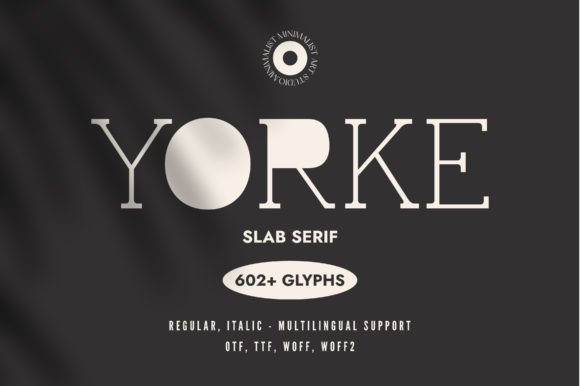
Are you looking for the best fonts for your magazine? Look no further than Yorke Font, created by Minimalistartstudio. This modern slab serif font is guaranteed to elevate your designs and captivate your audience.
With its sleek and sophisticated look, Yorke brings a touch of elegance and professionalism to any project. Its clean and crisp lines give it a contemporary feel, while the slab serif design adds a classic touch. This unique combination of old and new makes Yorke the perfect choice for projects that require a timeless yet modern aesthetic.
Whether you're designing a logo, creating a website, or producing a print publication, Yorke has everything you need to make your work stand out from the crowd. Its versatility allows it to seamlessly adapt to any design style or theme, making it a must-have for any creative professional.
But what truly sets Yorke apart is its ability to evoke emotions and create a connection with your audience. The font's captivating charm and attention to detail will leave a lasting impression on anyone who encounters it. It effortlessly conveys a sense of sophistication and professionalism, making your message more impactful and memorable.
Yorke isn't just a font, it's a tool that empowers you to express your creativity and vision. Its extensive character set and multiple weights give you endless possibilities to experiment and create unique designs that truly reflect your brand. Whether you're aiming for a bold statement or a subtle elegance, Yorke has the versatility to bring your vision to life.